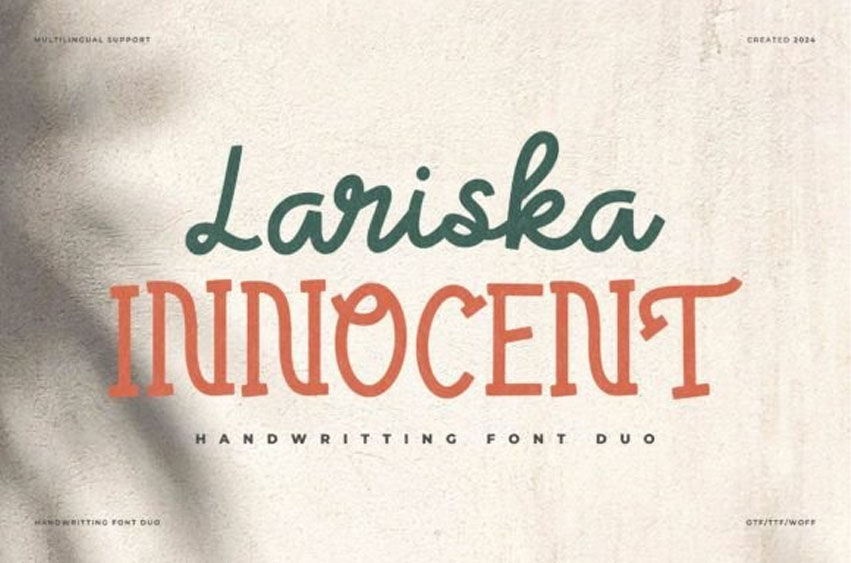
Lariska Innocent Font
Lariska Innocent Font is a playful and elegant font duo that combines two handwriting styles. One is more delicate and pretty, while the other is bold and casual.
Together, they create a balanced and stylish look, perfect for invitations, logos, and personal projects.